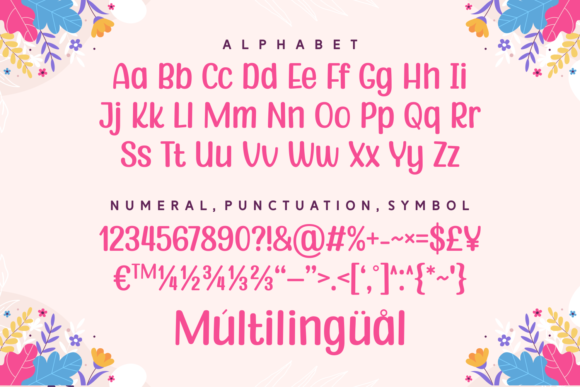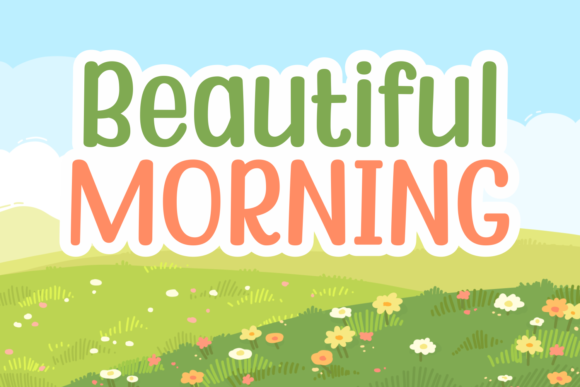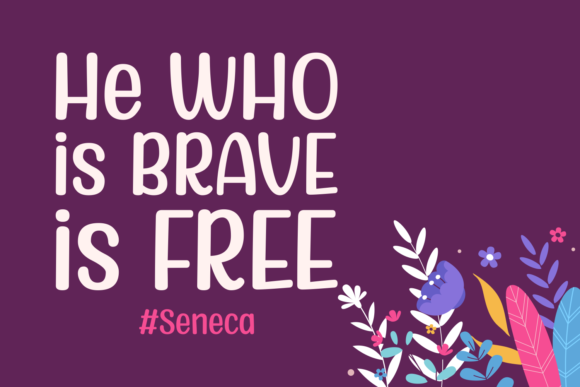
Introducing Always Sanguine: The Ultimate Handwritten Font for Creative Projects
Are you on the hunt for a font that can add a touch of warmth, romance, and playfulness to your design projects? Look no further than Always Sanguine, a beautiful and natural handwritten font that’s sure to bring your creative visions to life. In this article, we’ll dive into the world of Always Sanguine, exploring its unique characteristics, uses, and benefits for designers and crafters alike.
What is Always Sanguine?
Always Sanguine is a delightful handwritten font that’s been carefully crafted to evoke a sense of joy, warmth, and romance. Its natural, effortless flow makes it perfect for a wide range of design projects, from wedding invitations and greeting cards to branding materials and digital content. With its cute and charming aesthetic, Always Sanguine is sure to capture the hearts of designers, crafters, and audiences alike.
Key Features of Always Sanguine
So, what sets Always Sanguine apart from other fonts? Here are just a few of its key features:
- Handwritten with love: Always Sanguine is a genuine handwritten font, infused with the imperfections and quirks that make it uniquely charming.
- Warm and romantic: With its soft, flowing lines and gentle curves, Always Sanguine exudes a sense of warmth and romance, perfect for projects that require a touch of elegance.
- Endless variations: Whether you’re looking for a bold statement or a subtle whisper, Always Sanguine offers a range of variations to suit your design needs.
- Cute and playful: This font is guaranteed to bring a smile to your face, with its bouncy letters and carefree vibe.
Uses for Always Sanguine
So, what can you create with Always Sanguine? The possibilities are endless! Here are just a few ideas to get you started:
- Wedding invitations and stationery: Add a touch of romance and whimsy to your wedding designs with Always Sanguine.
- Greeting cards and gift tags: Create personalized, handmade-style cards and tags with this beautiful font.
- Branding and packaging: Use Always Sanguine to add a touch of warmth and personality to your brand’s packaging and marketing materials.
- Digital content: Bring a touch of handmade charm to your blog, social media, or website with Always Sanguine.
So, why should designers and crafters choose Always Sanguine for their projects? Here are just a few benefits:
- Customization: With its range of variations and flexibility, Always Sanguine can be tailored to suit your unique design style.
- Inspiration: Always Sanguine is sure to spark your creativity, with its charming aesthetic and playful vibe.